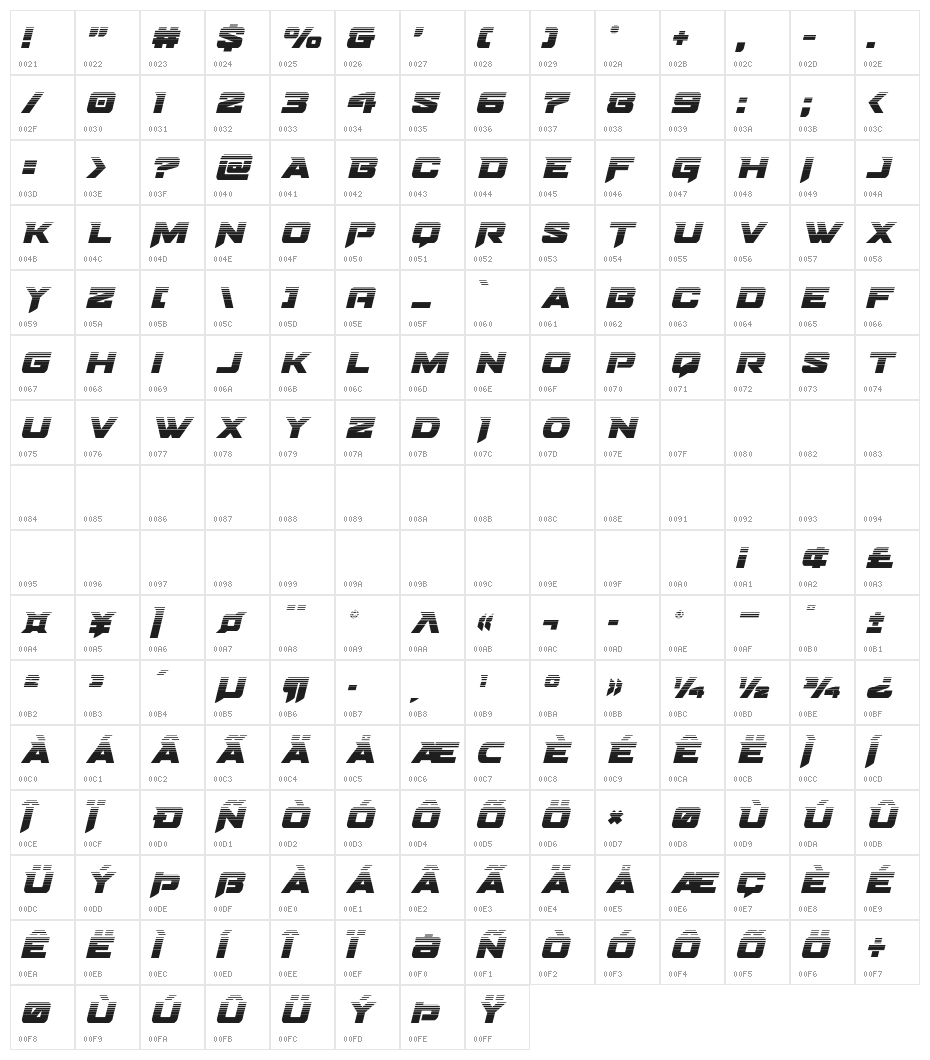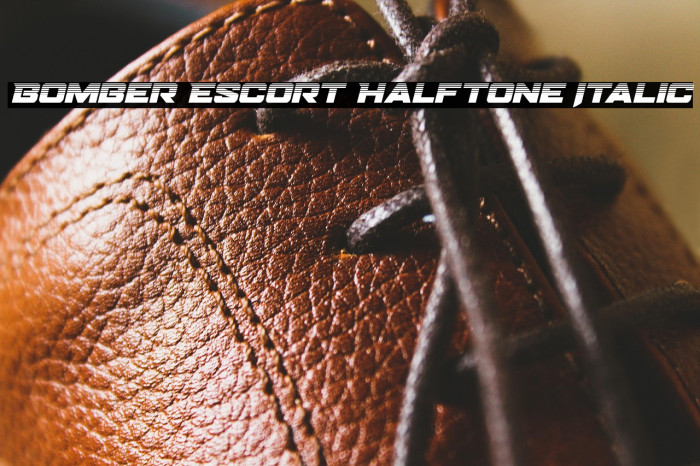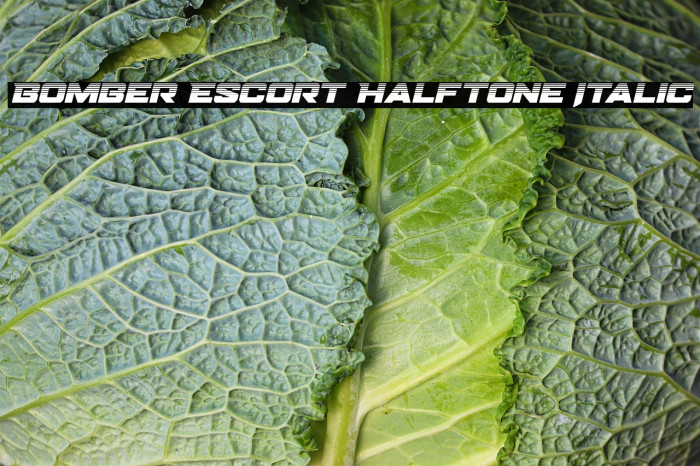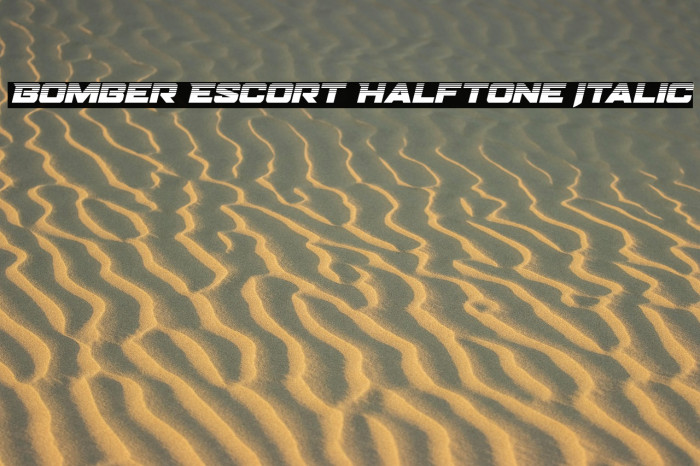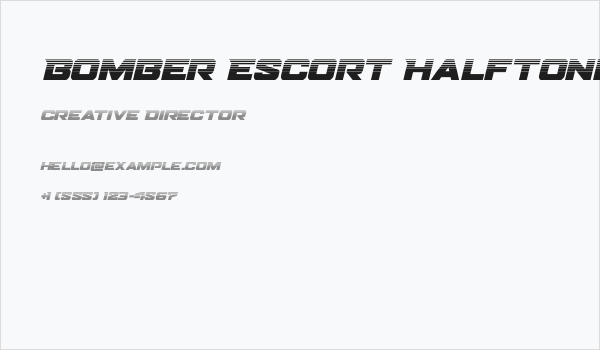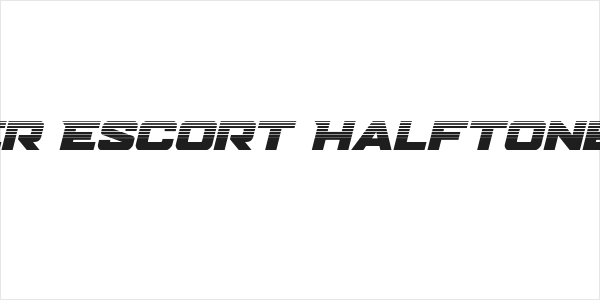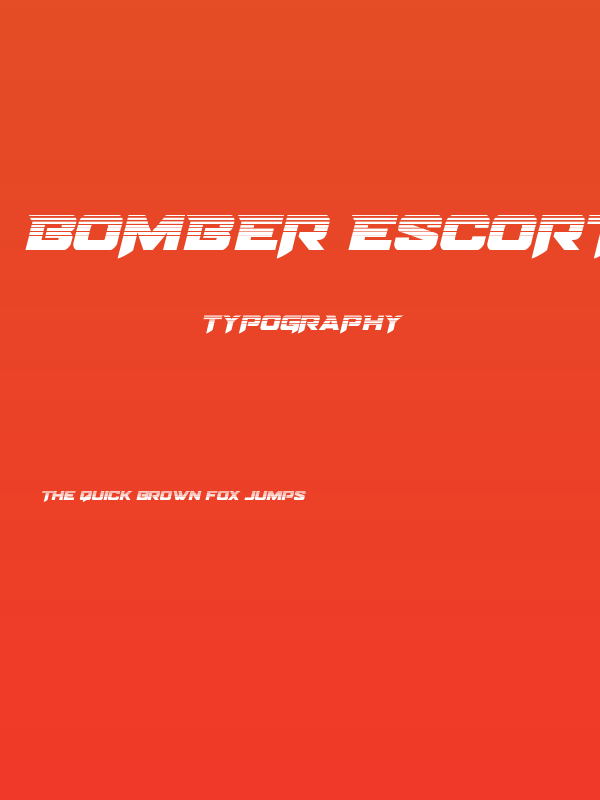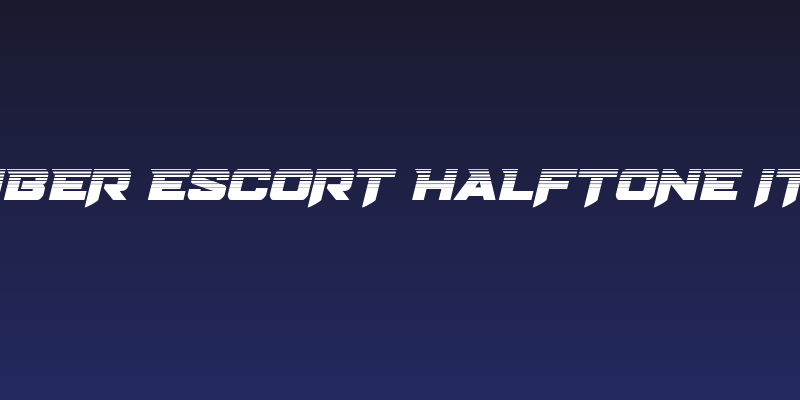
Bomber Escort Halftone Italic Font
Bomber Escort Halftone Italic Description
This font features a bold and dynamic design with a distinct halftone effect, giving it a futuristic and edgy appearance. The uppercase letters are characterized by sharp angles and a slanted orientation, enhancing the italicized style. The horizontal lines within each character create a sense of movement and speed, making it ideal for projects that require a modern and energetic look. The numbers and special characters maintain the same stylistic elements, ensuring consistency across all text. This font is particularly suitable for designs that aim to capture attention and convey a sense of innovation and forward-thinking.
| Proposed Projects | Perfect for sports branding, tech-related logos, futuristic posters, and video game titles. |